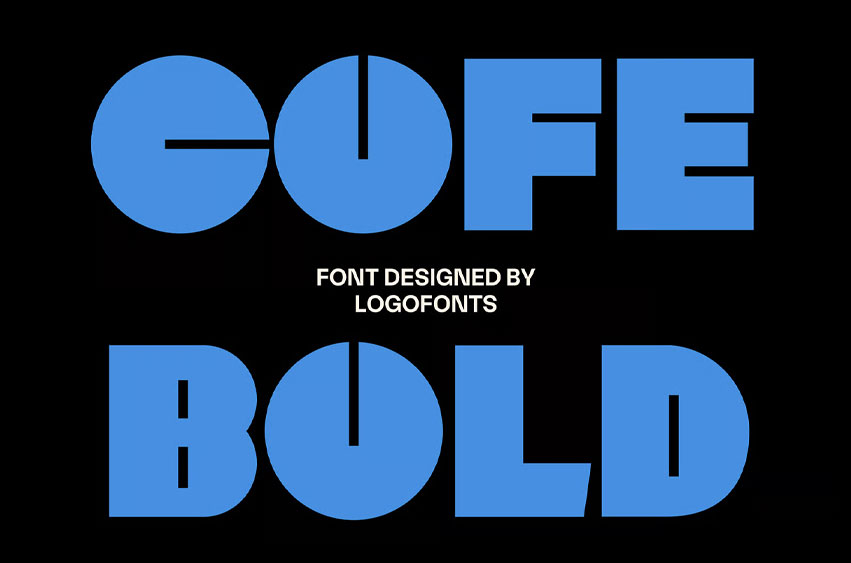
Cofe Bold Font
Cofe Bold Font is a modern display font designed with strong geometric shapes and a clean minimalist style that delivers a bold and elegant visual impact. Designed for elegance and crafted for timeless branding, this font is perfect for logo creation, fashion branding, corporate identities, editorial layouts, and modern creative presentations. Its balanced structure and bold typography create a professional yet stylish appearance, making every design feel confident, contemporary, and visually memorable.
Built for modern brands and creative designers, Cofe Bold works beautifully across display headlines, intro visuals, geometric compositions, clean posters, and premium brand identities. The sleek and minimal letterforms give this font a versatile personality suitable for fashion campaigns, corporate projects, packaging, and digital branding. With its modern aesthetic and timeless character, Cofe Bold transforms simple typography into a striking visual statement full of style and sophistication.
Designed for elegance, crafted for timeless branding.